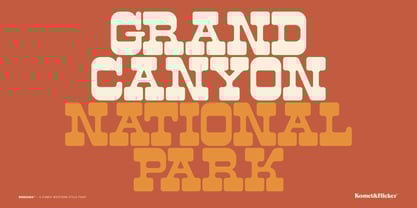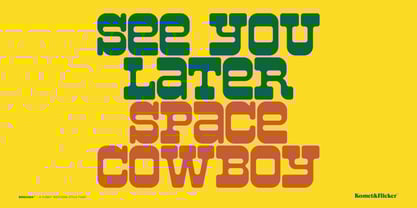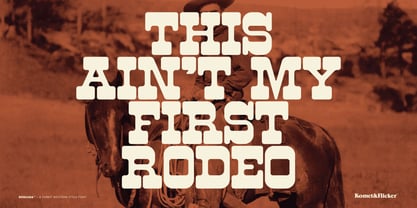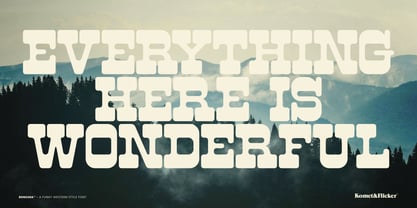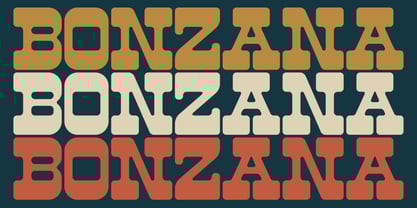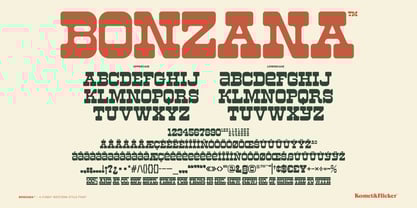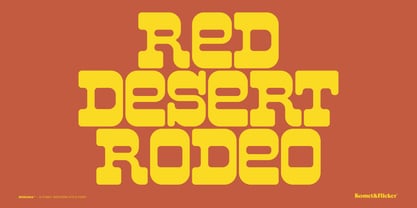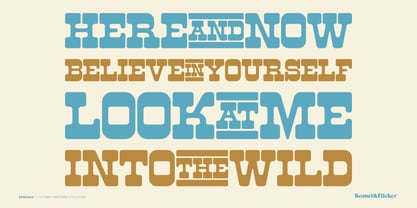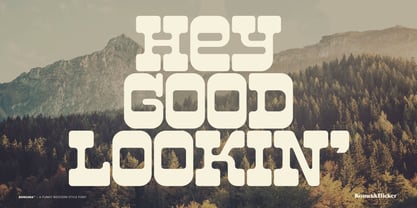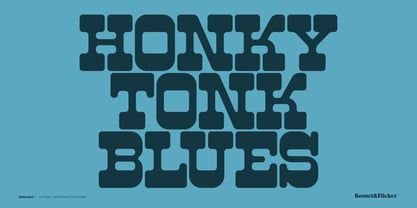
Bonzana
by Komet & Flicker
The Bonzana Font Family was designed by David Phillips and published by Komet & Flicker. Bonzana contains 1 styles. More about this family
Add some bold, funky flair to your designs with BONZANA – a fun and lively western slab serif font! This unique typeface blends classic western vibes with a playful twist, making it perfect for projects that need a little extra character and style. Whether you're designing a poster, a logo, or a retro-themed graphic, BONZANA will bring your vision to life with its quirky charm.
This font includes alternatives for the letters A, E, G, K, N, R, and Y, plus extra alternatives for A and E, giving you plenty of options to mix things up and create personalized typographic designs. And with its set of 19 connecting word glyphs, BONZANA lets you easily create seamless, flowing text – perfect for adding that extra touch of western spirit to your next project.
• Set of 19 custom connecting word glyphs
Designers: David Phillips
Foundry: Komet & Flicker